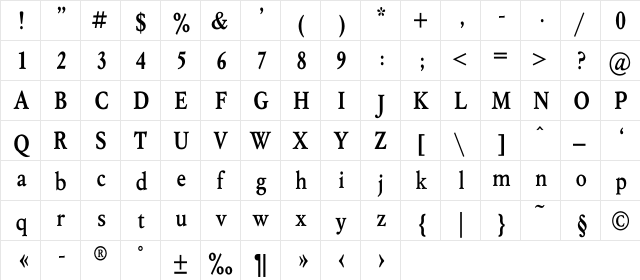
MyslNarrowC Bold
Design Context for MyslNarrowC Typeface
MyslNarrowC offers clean, dependable letterforms without strong stylistic allegiance, making it a practical choice for designers who need flexibility. Its bold stroke weight gives it real presence on the page. The condensed width makes it efficient for tight spaces without sacrificing legibility.